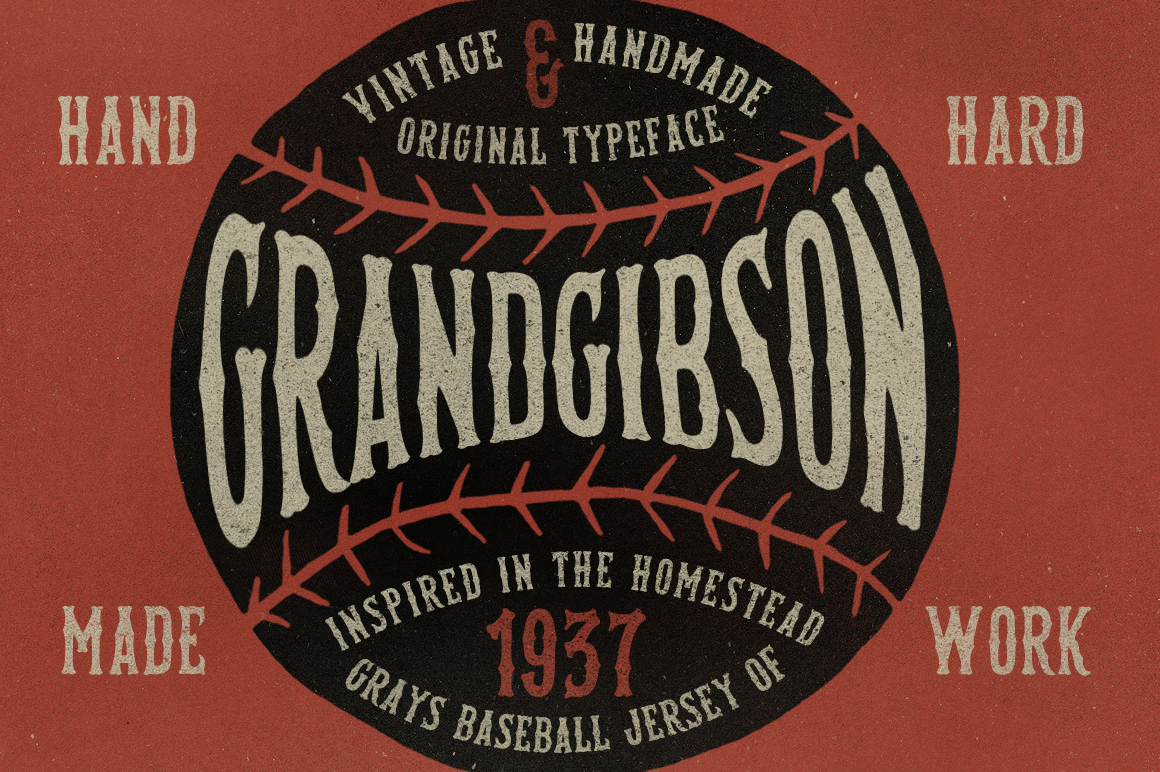
GrandGibson Typeface
GrandGibson Typeface is based and inspired by typography "Grays" in the official Jersey worn by "Homestead Grays Team" in the American Negro League of Baseball in 1937 and its name honors one of the most greatest catchers of the time, Joshua "Josh" Gibson.
It is made entirely by hand and digitally perfected, we have also included 18 vintage vector elements of baseball for use as figural cameos.